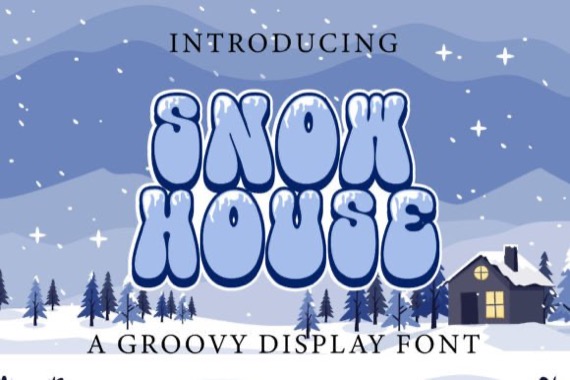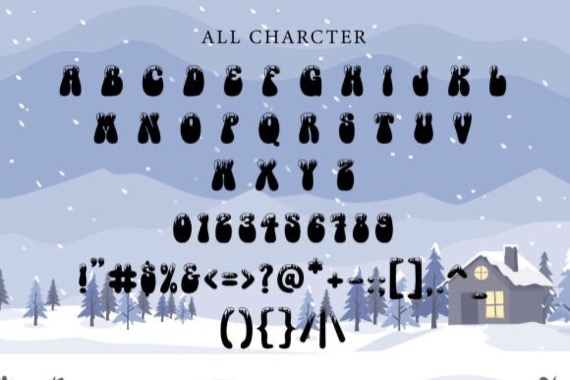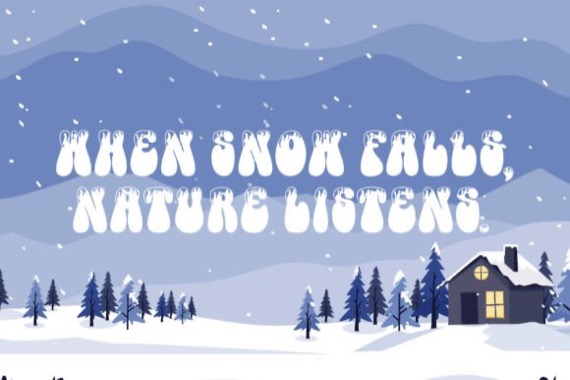
This is a cool and stylish typeface from Densu Creative, Snow House is a versatile, stylish, groovy, and playful retro display font perfect for a wide spectrum of applications such as greeting cards, headlines, and many more! Add it to any of your creative projects, and it will give them a romantic and exquisite feel.
Snow House Groovy Display Font